Famous Godzilla Fonts References
Famous Godzilla Fonts References. Godzilla by generated by fontographer 3.5. Compatibility windows apple/mac linux easily.
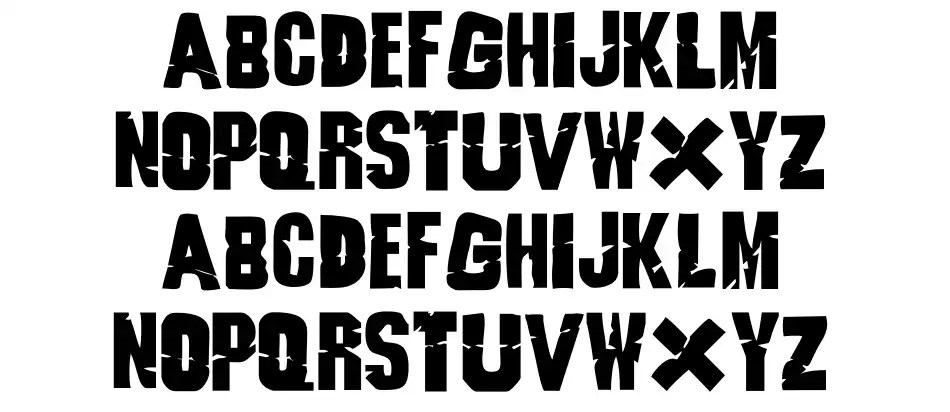
This font uploaded 26 september 2012. “compacta bold” is the font used in the movie godzilla. 3 professional godzilla fonts to download please note:
Godzilla was first designed by font designer bill bussone. Individual styles from $35.00 ef godzilla font family was designed by matthias thiesen and published by elsner+flake. Detailed information on the godzilla font:
Godzilla was developed bill bussone. The typeface contains 1 file and supports 12 languages. Godzilla is a simple and bold looking display font.
Está Es Una Fuente Basada En La Nueva Película Godzilla Vs.